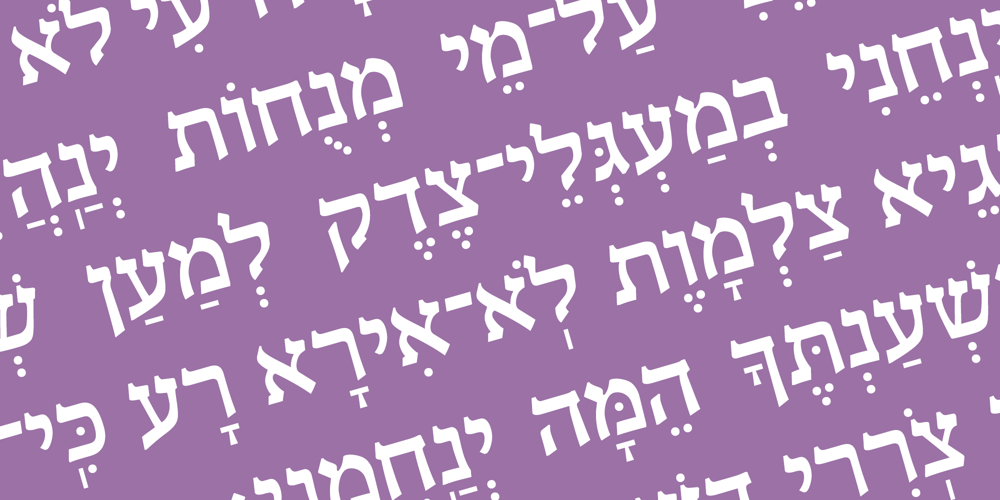
Hebrew Liane Std Font Family was designed by Sami Artur Mandelbaum and published by Samtype. Hebrew Liane Std contains 3 styles and family package options. This is a modern, wonderful, and beautiful font.This font is super readable and can be used from Posters to a Hebrew Bible.The readability of this font is amazing.This font has the modern Hebrew punctuation: Shevana, Kamatz Katan, Dagesh Hazak, and Cholam Chaser.Designers: Sami Artur MandelbaumPublisher: SamtypeMyFonts debut: Jan 17, 2022